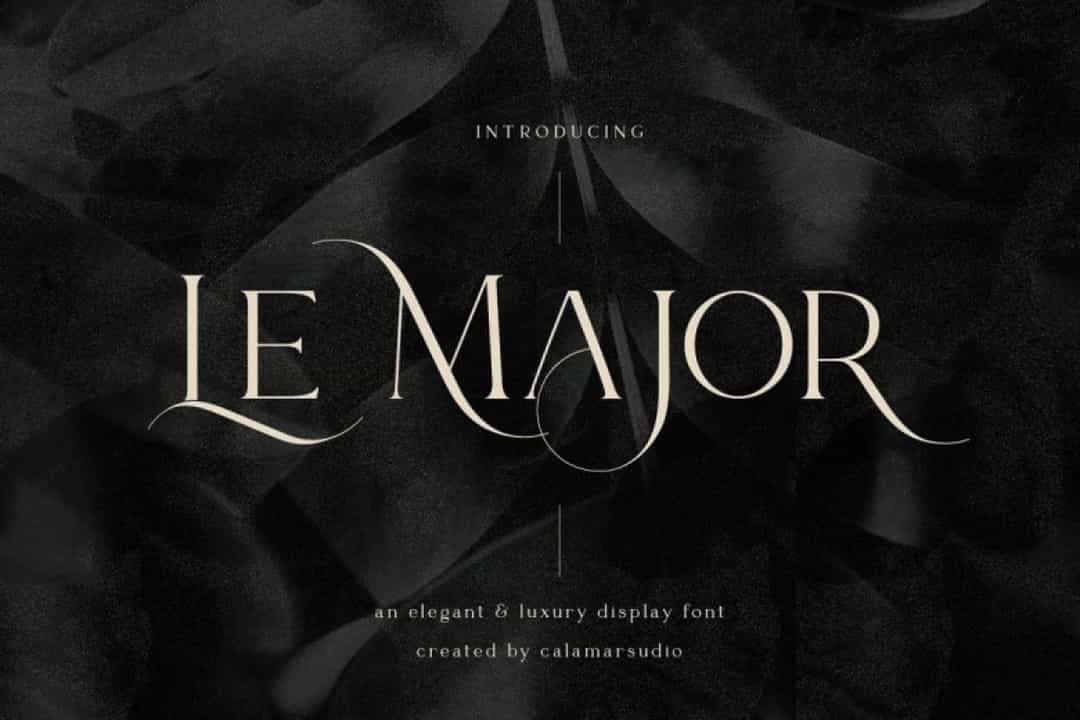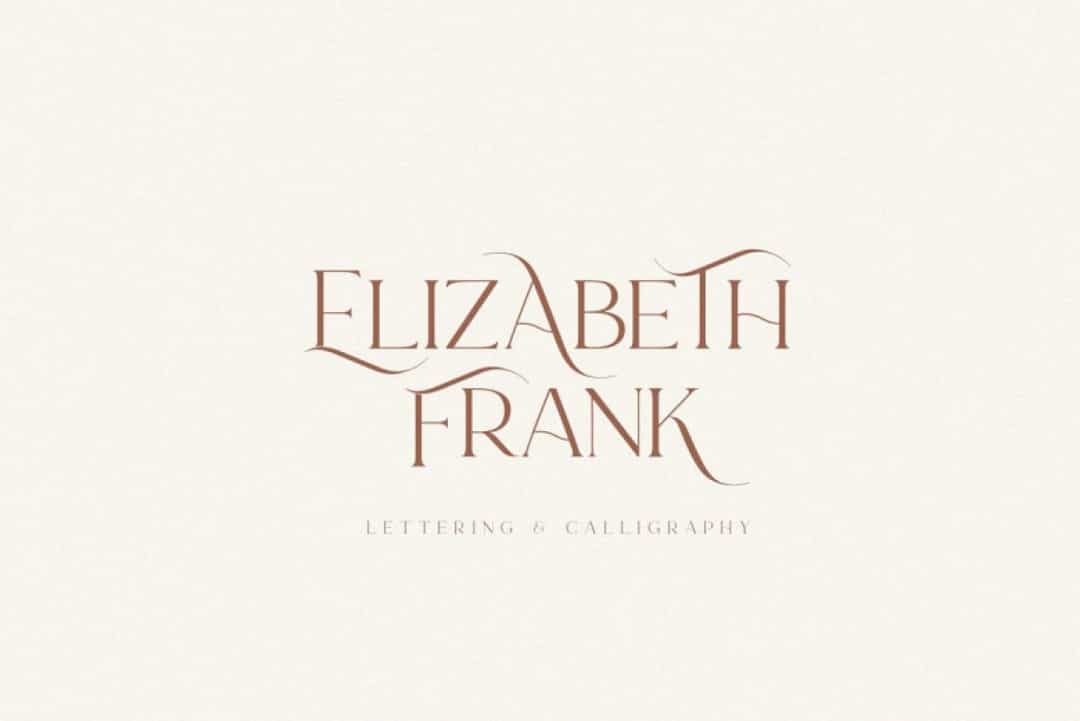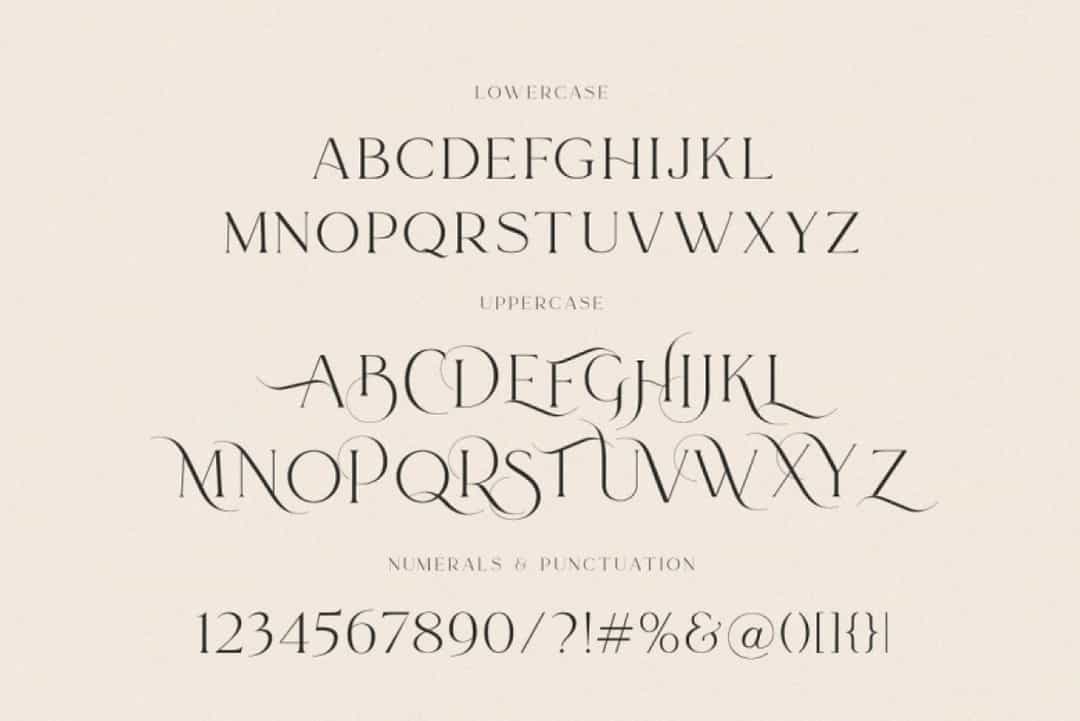
Le Major Font
Le Major is my brand new serif font designed to add class and elegance to your designs. Perfect for branding, logotypes wedding monograms invitations blogs headlines blog posts iterations headlines or more, the examples can serve as inspiration during its creation process. See all examples and be as amazed at my process when creating this font as it was for me when creating it.